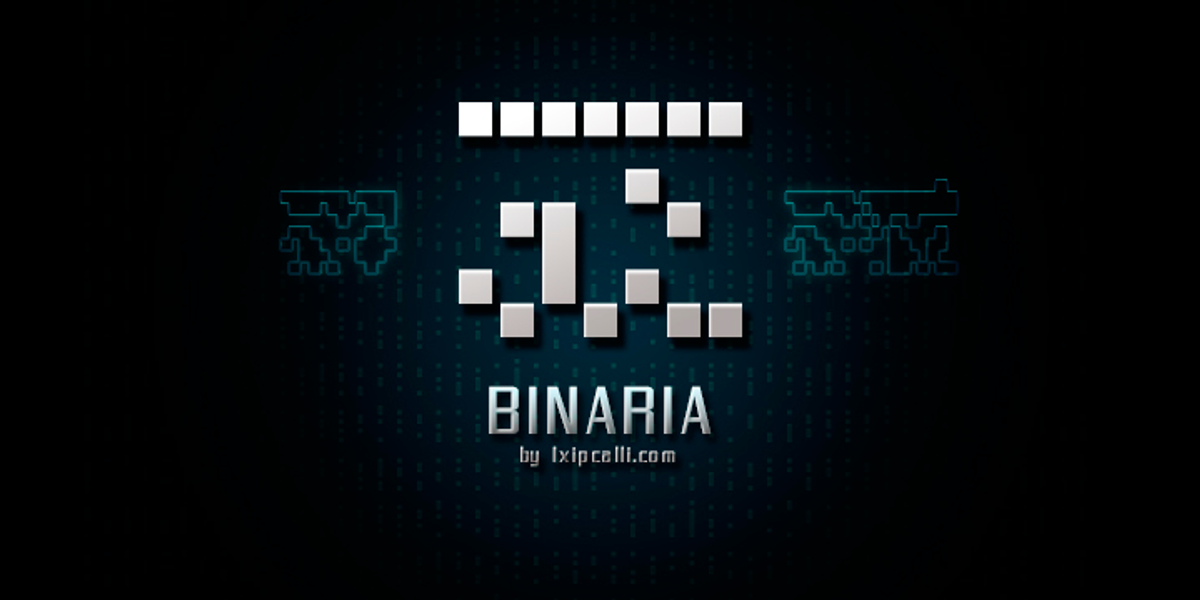
Binaria
The Binaria font is a Dingbat style font, representing the binary codes of each written character. This font has been widely used for technology-related projects.